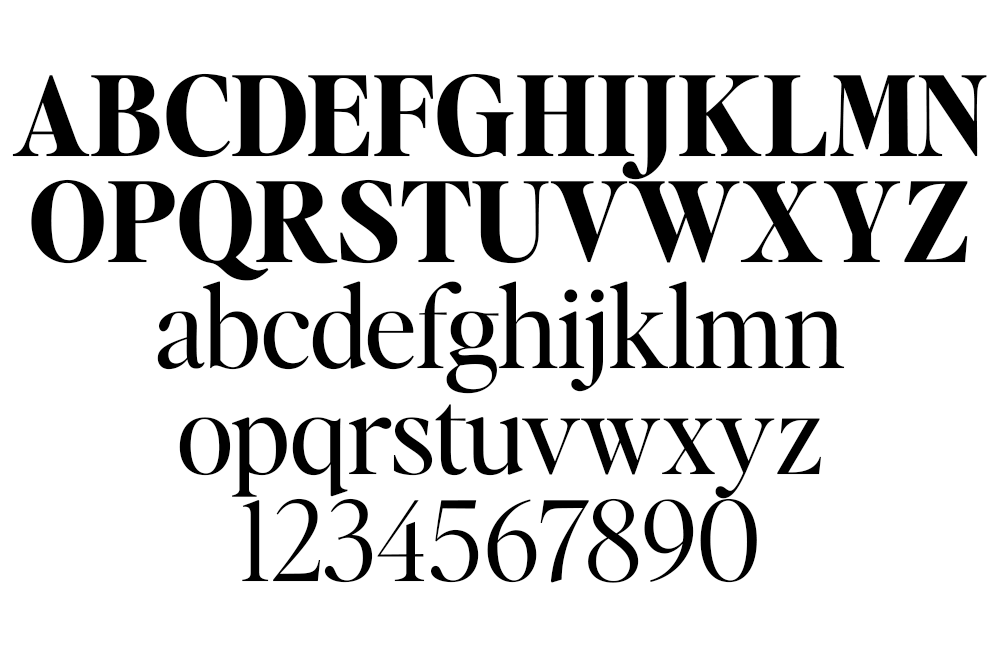
Editor’s Note – Clean and Stylish Editorial Serif
Editor’s Note is a modern serif font made for editorial design. It includes 16 fonts—Hairline to Bold—with matching italics. Each style has tight curves and a clean, minimalist look.
This font is ideal for large text. Use it in headlines, quotes, or calls to action. The upper and lowercase letters are crisp and balanced, giving your design a timeless editorial feel.
You can use Editor’s Note in websites, magazines, branding, and more.